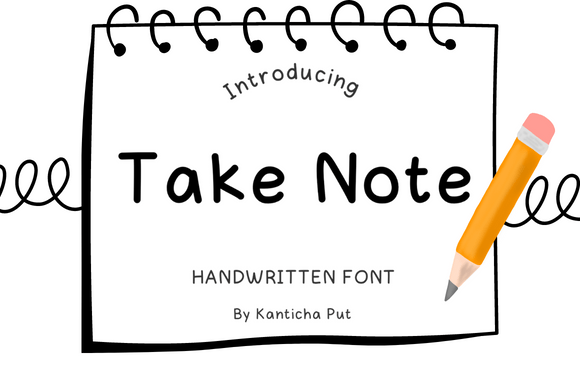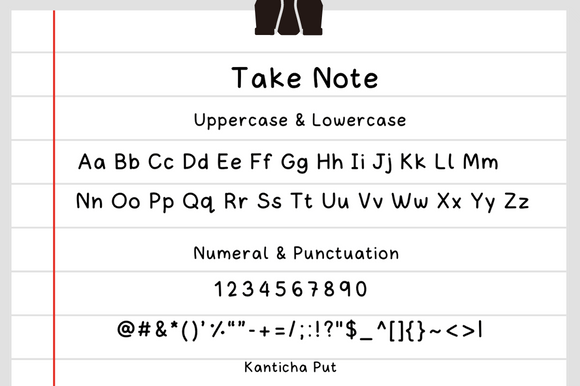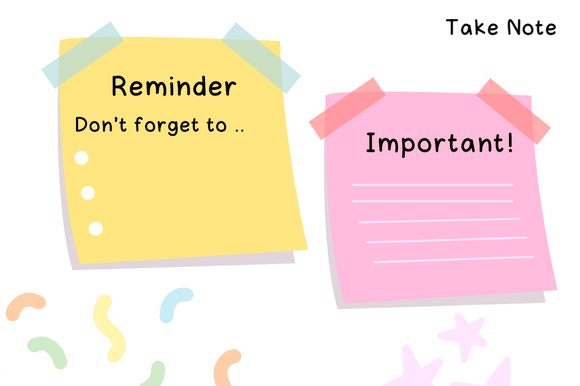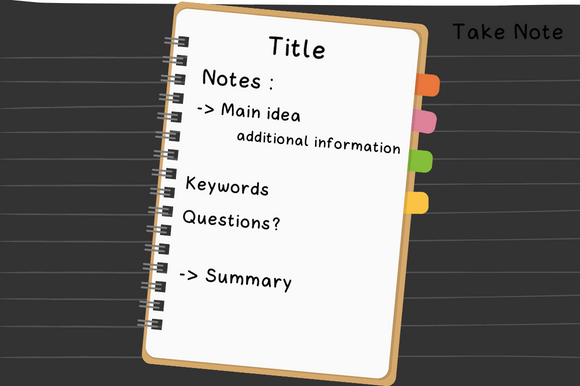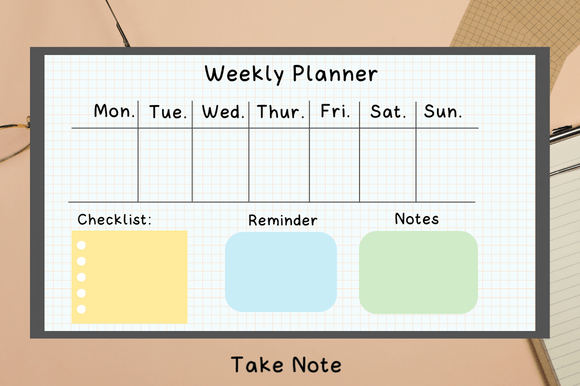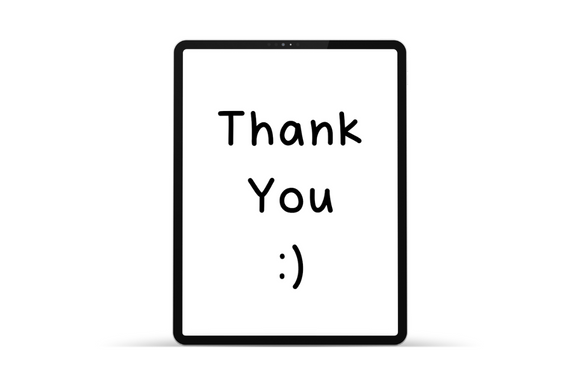
Take Note Font: A Simple and Neat Handwritten Font for Everyday Use
We are introducing Take Note, a clean and casual handwritten font designed for a wide range of everyday applications. This versatile typeface is perfect for note-taking, planners, journaling, study materials, blog posts, invitations, and greeting cards.
Key Features of Take Note Font
- Simple and Neat Style: Offers a clean, uncluttered appearance for maximum readability.
- Versatile Application: Ideal for various personal and professional uses.
- Handwritten Charm: Adds a personal touch while maintaining clarity.
Perfect for Multiple Uses
Take Note’s adaptability makes it an excellent choice for:
- Study Notes: Create organized and visually appealing study materials.
- Planners and Journals: Maintain a clean and tidy personal or professional planner.
- Blog Posts: Add a personal touch to your online content.
- Invitations and Greeting Cards: Design personalized stationery with a casual flair.
- Social Media Content: Enhance your posts with readable, handwritten-style text.
Enhancing Your Writing Experience
What sets Take Note apart is its effortless and uncluttered design. This font is the perfect choice for projects where clarity and readability are paramount. Whether you’re jotting down thoughts, planning your day, or creating content for your blog, Take Note ensures your text is easily accessible and engaging.
Crafting with Take Note
For students, bloggers, journaling enthusiasts, or creative professionals, Take Note offers a versatile and reliable option for all writing needs. Its simplicity allows your content to shine while maintaining a handwritten charm that resonates with readers.
Digital Applications
In the digital realm, Take Note enhances the overall aesthetics and readability of your content. Its clean style ensures that your messages are clear and visually appealing, making it perfect for online platforms where engagement is key.
Take Note is more than just a font; it’s a tool to elevate your everyday writing and design projects. Its simple and neat handwritten style makes it perfect for various applications, from personal notes to professional content creation. Embrace the versatility of Take Note today! Incorporate this practical handwritten font into your design toolkit and experience how it enhances the readability and appeal of your content. With Take Note, you can effortlessly take notes, stay organized, and express yourself with clarity and style across all your projects.